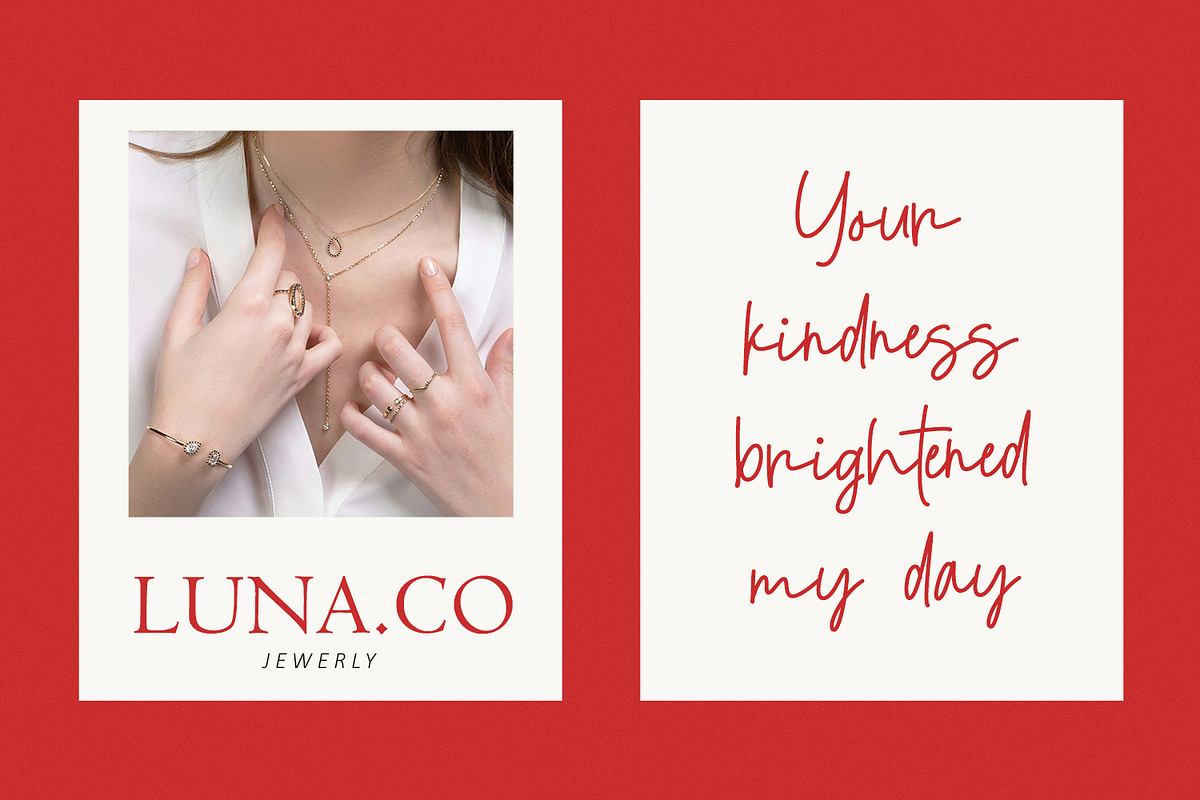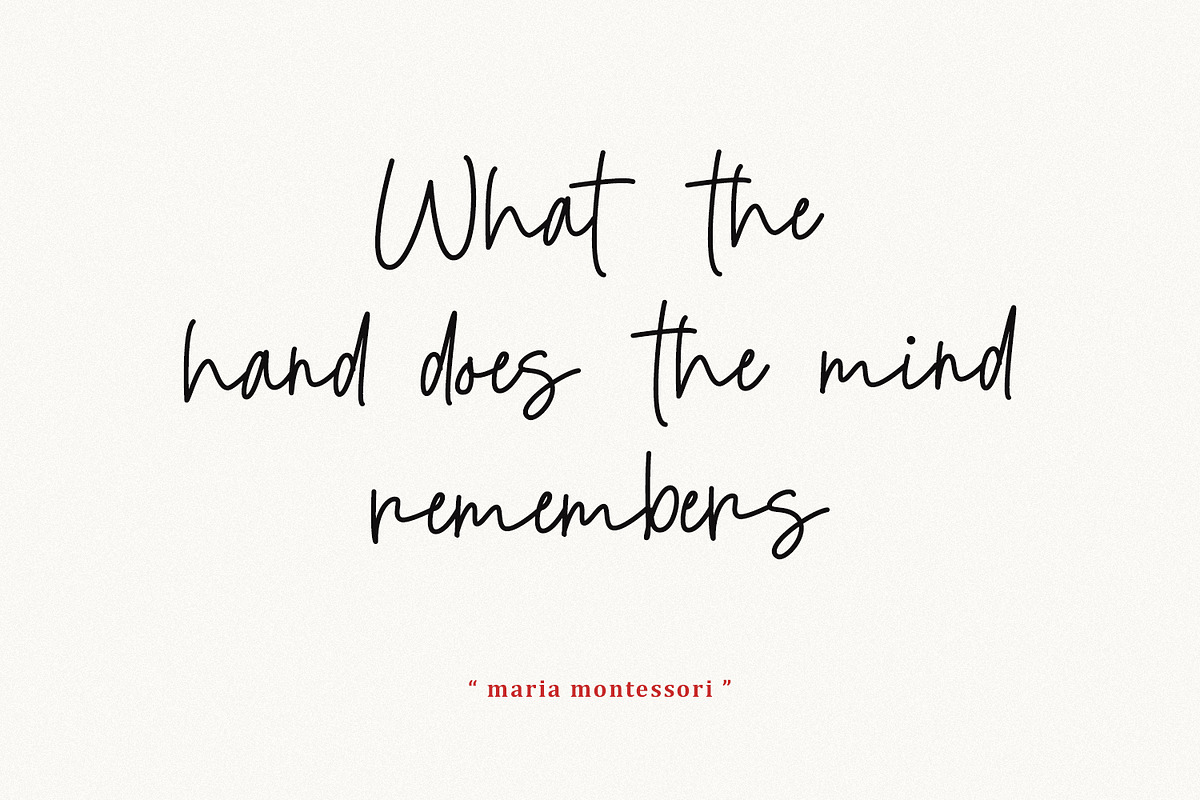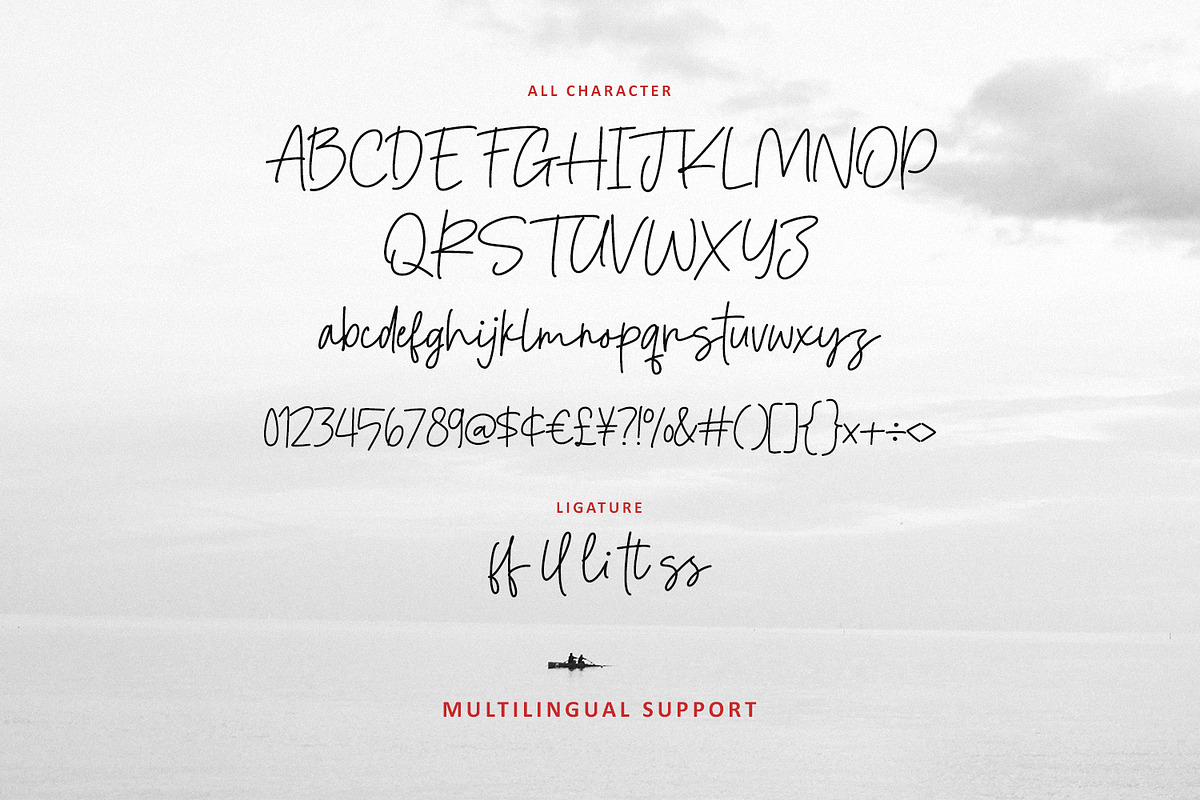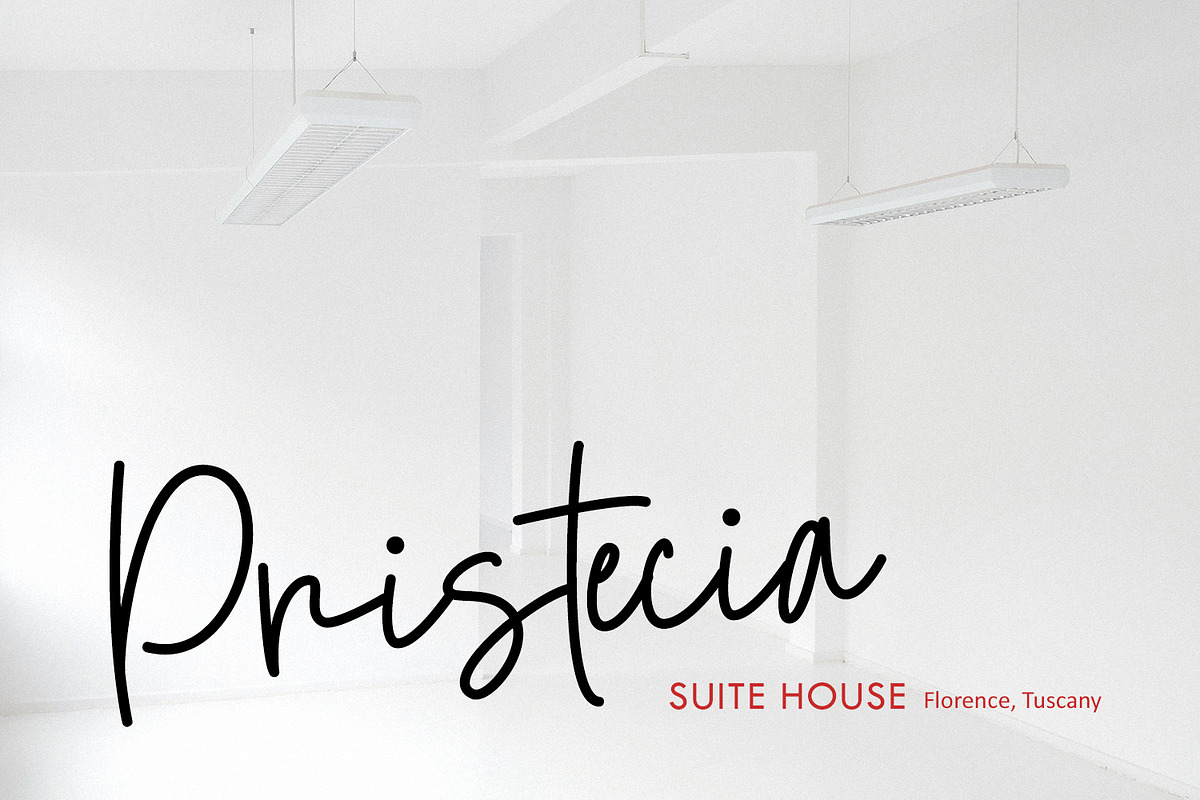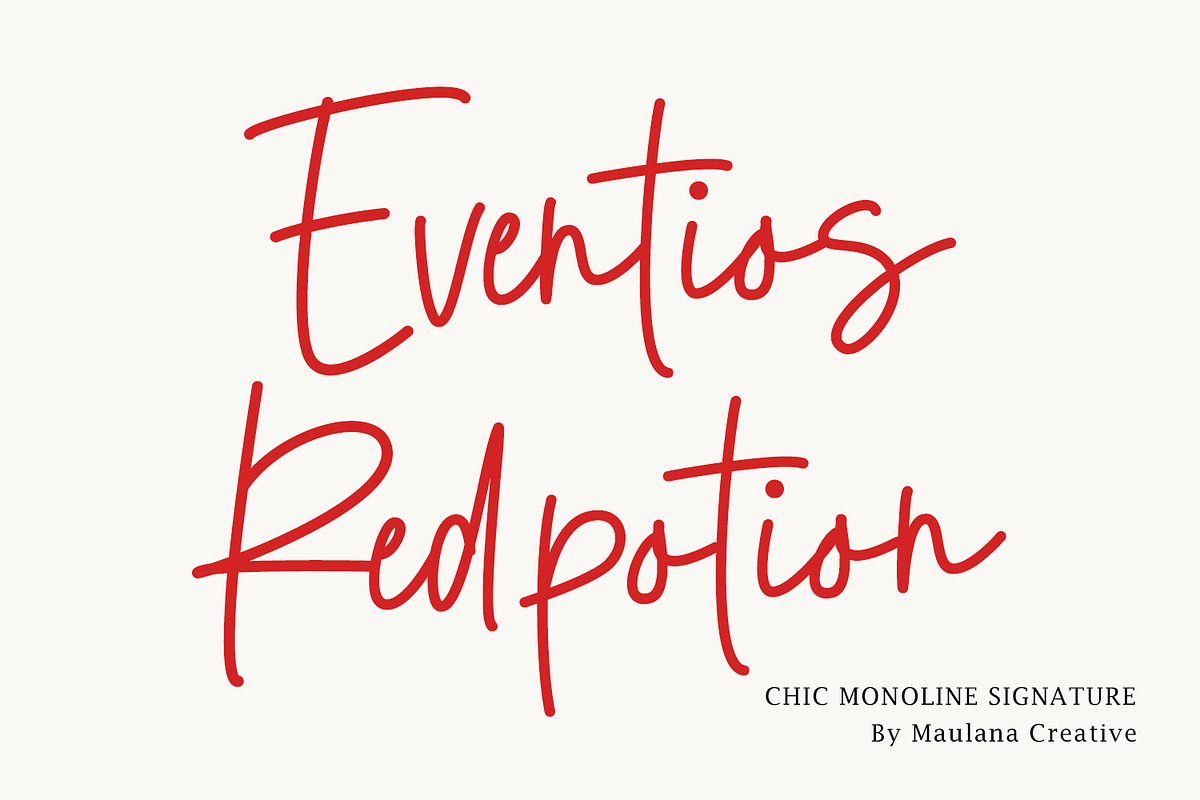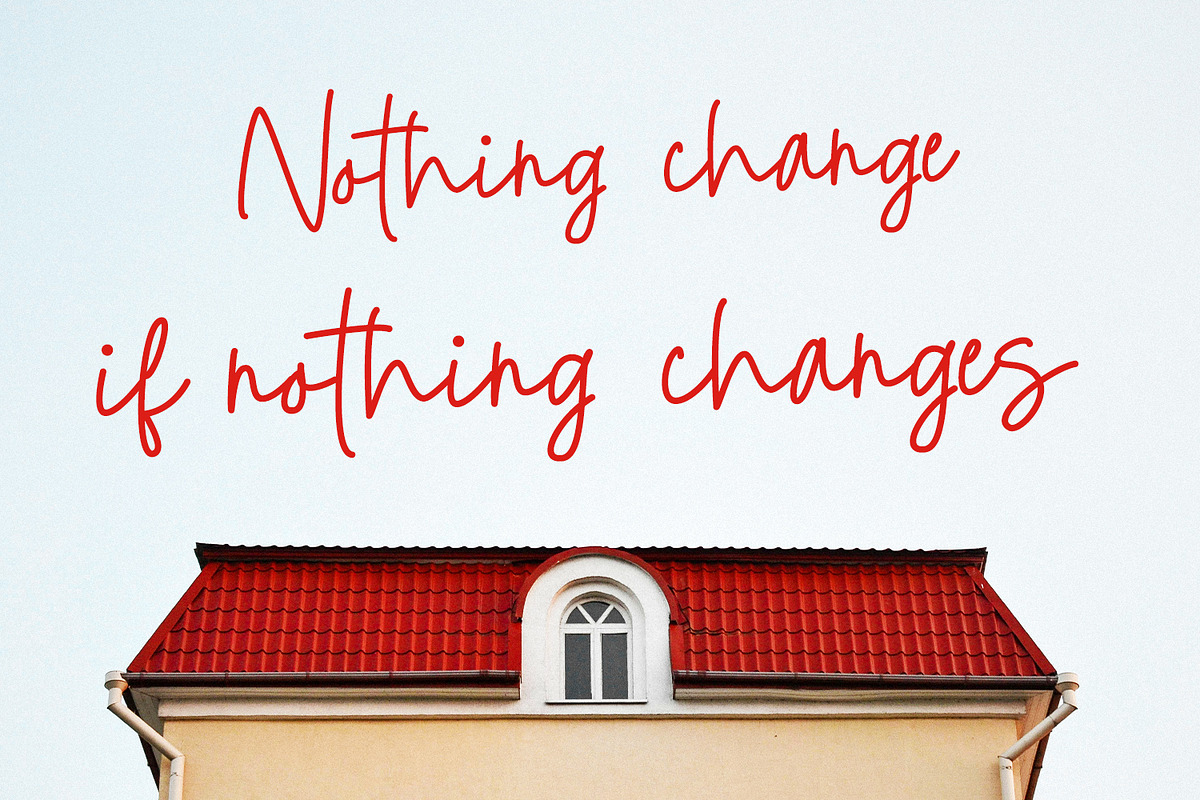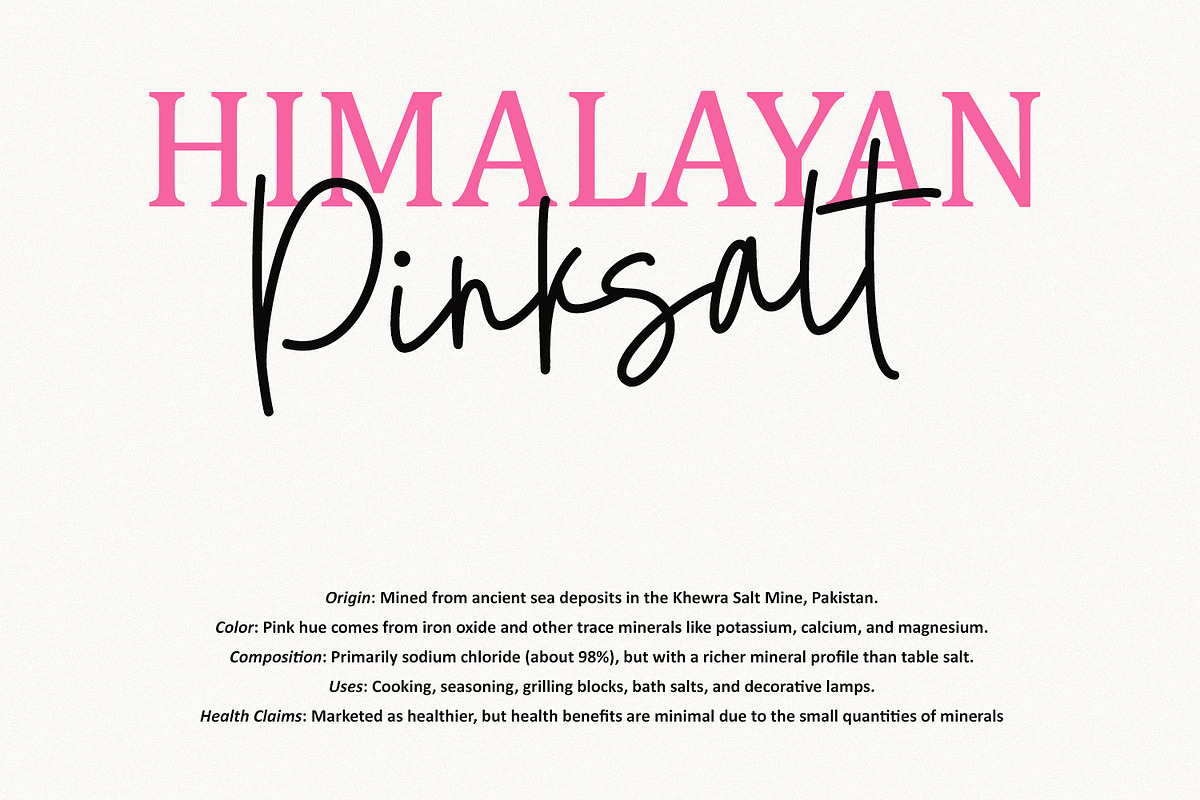
Eventios Redpotion Chic Monoline
Eventios Redpotion is a stylish monoline signature font that exudes effortless elegance and contemporary charm. Designed by Maulana Creative, this font features fluid, handcrafted strokes that mimic natural handwriting with a consistent line weight. Its clean yet organic feel makes it perfect for sophisticated branding, luxury logos, wedding invitations, and social media quotes. With its comprehensive character set, including ligatures and multilingual support, Eventios Redpotion brings a personal and "chic" touch to any creative project that requires a modern, humanistic aesthetic.
- Full character set (Uppercase & Lowercase)
- Numbers, Punctuation, and Symbols
- Ligatures for a natural handwriting flow